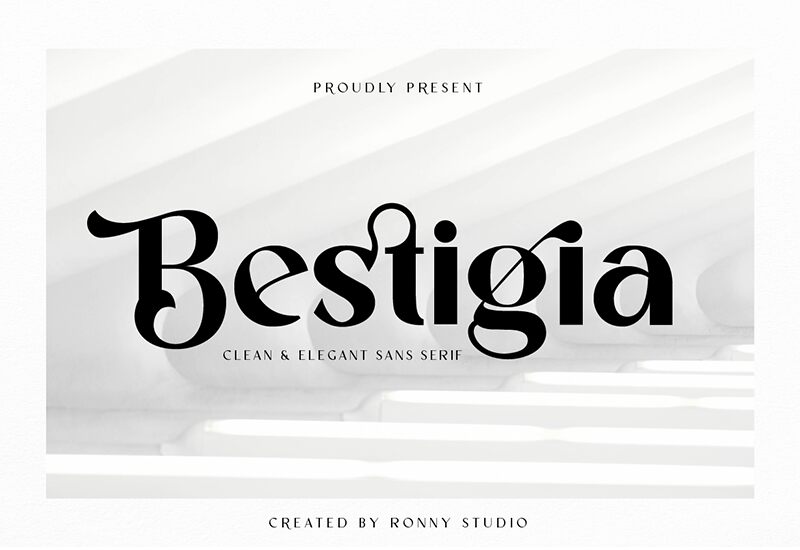
Bestigia-Regular
Introducing Bestigia, a bold sans serif font designed by Rony Rizki Jaya. It has a modern touch with its clean lines and crisp lettering, making it perfect for titles, logos, headlines and other creative projects. Bestigia also works great on website banners and posters - wherever you need to stand out from the crowd!